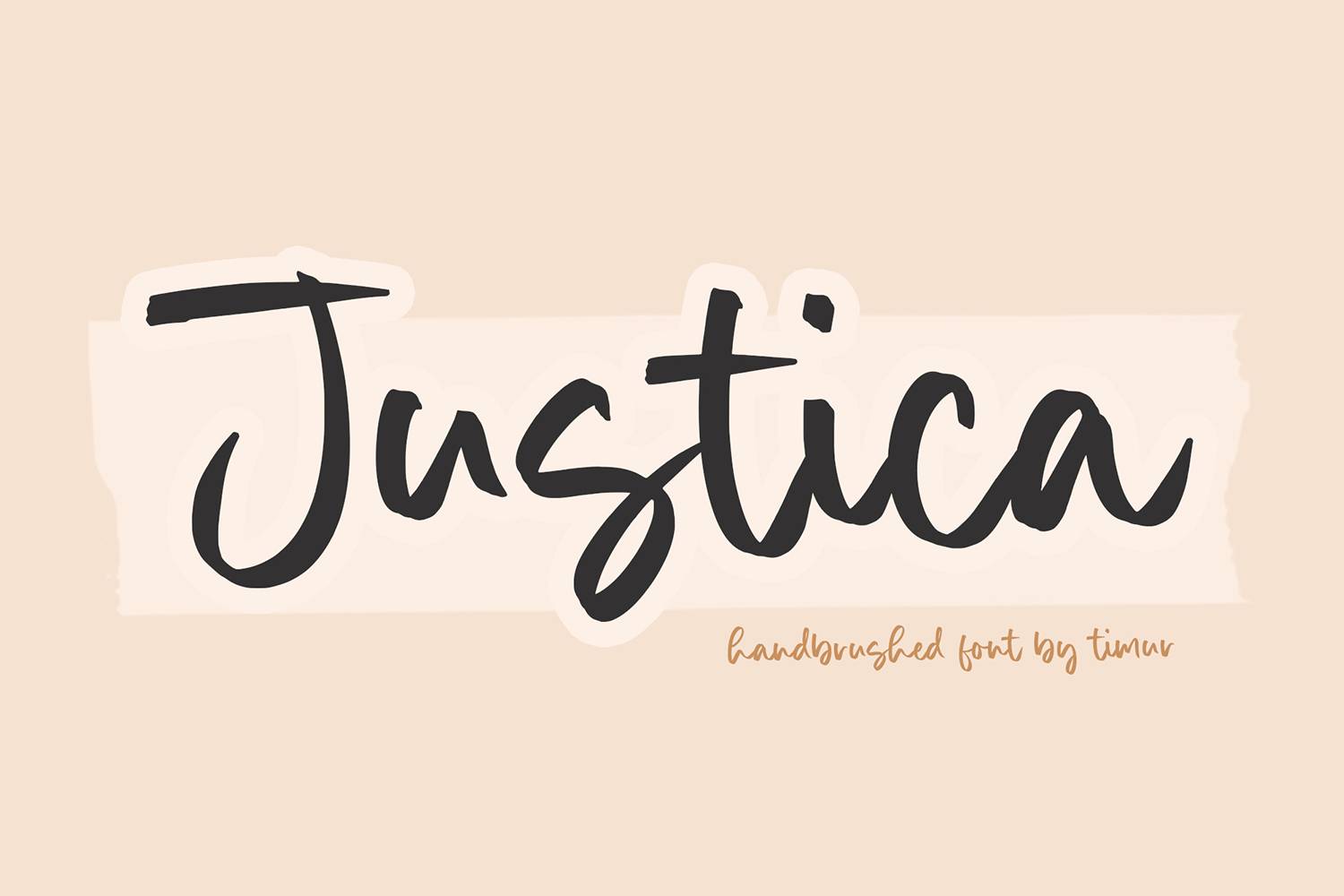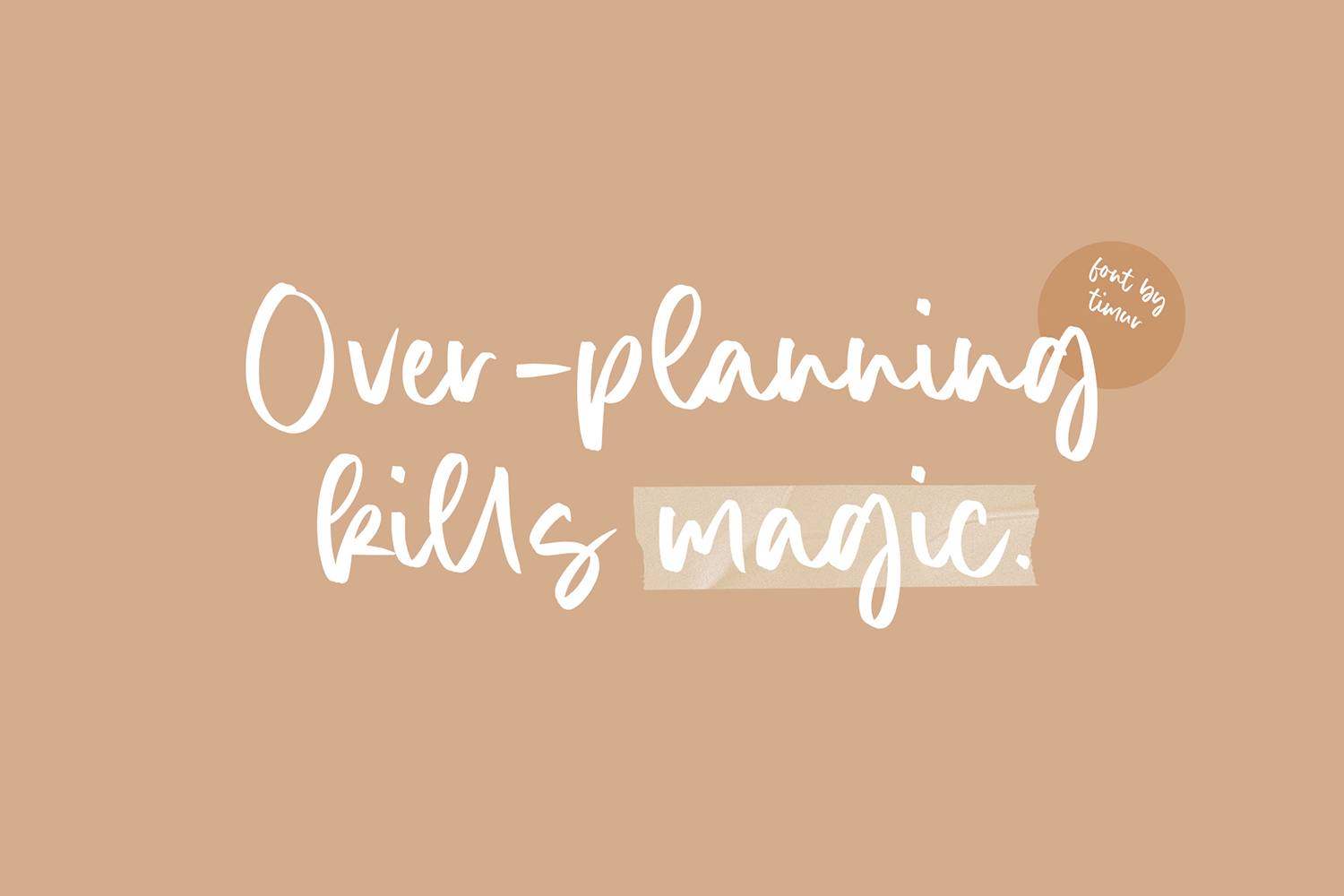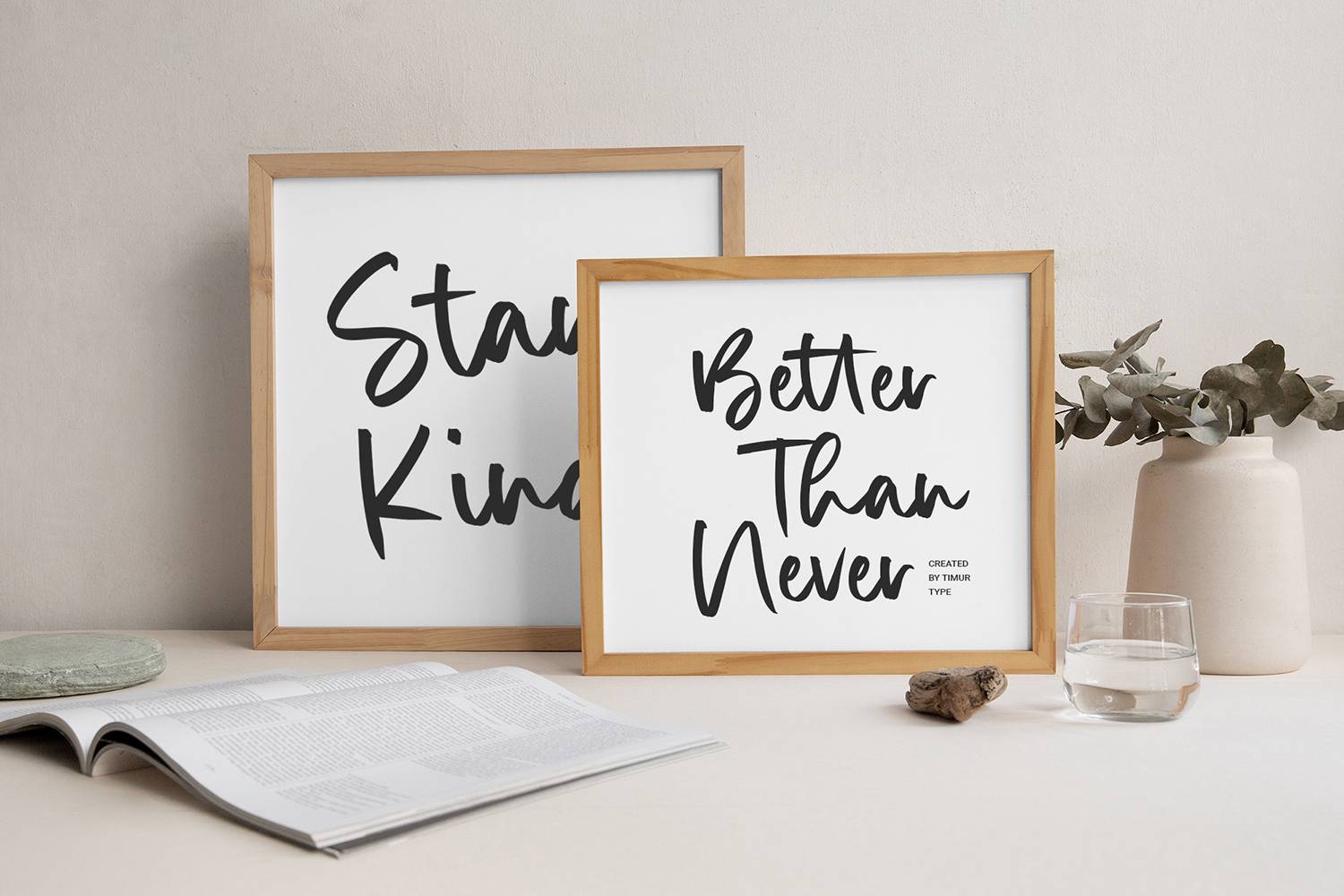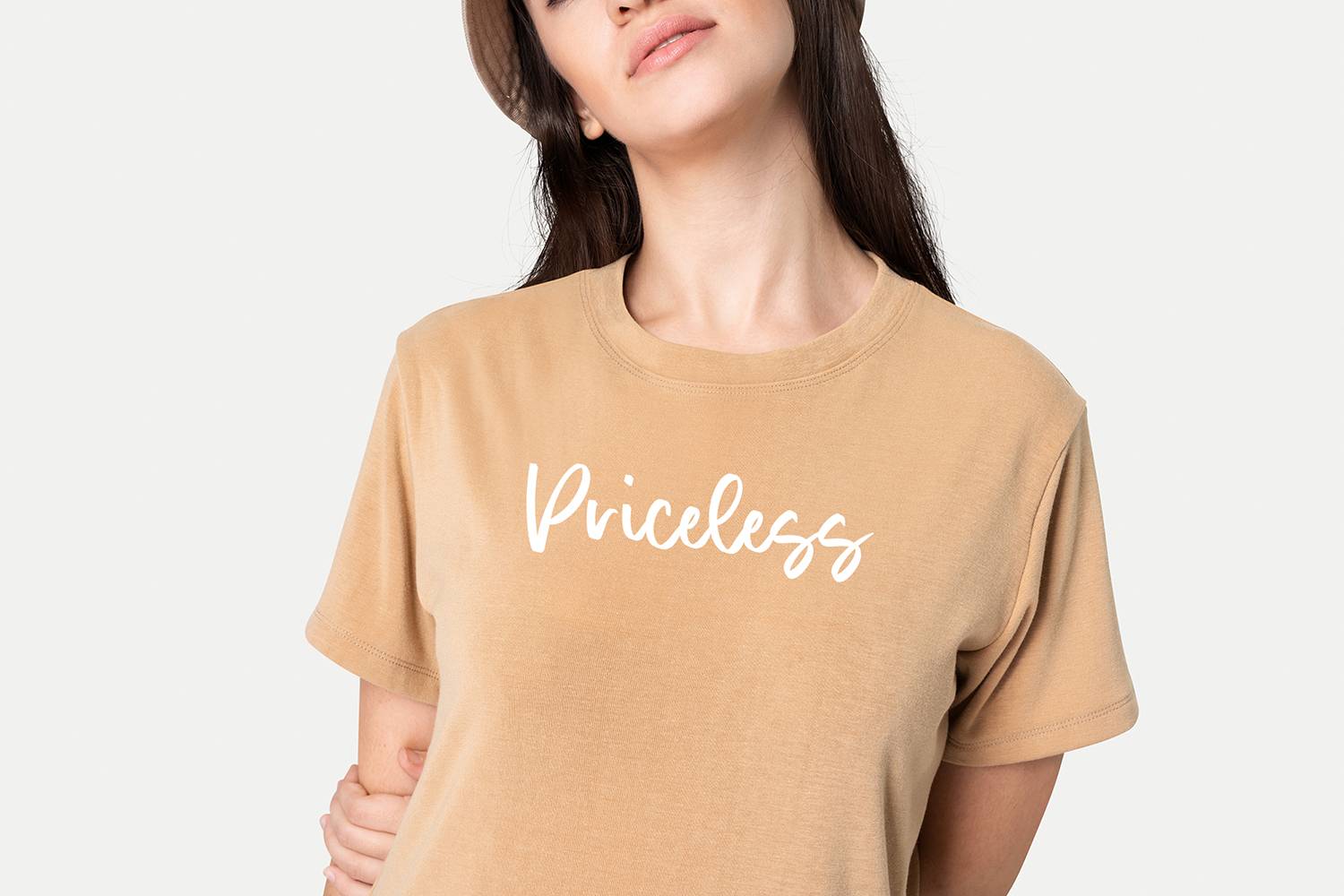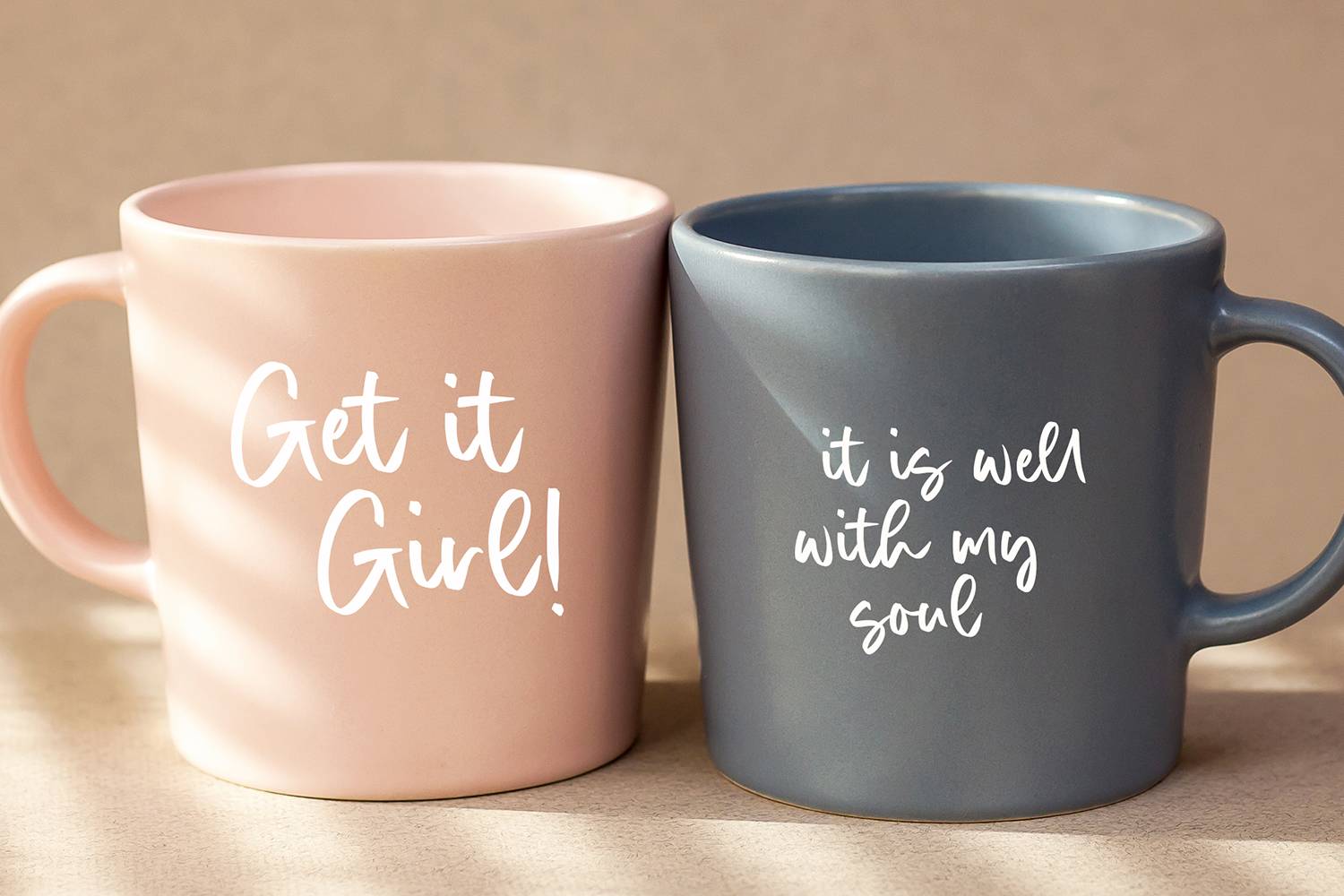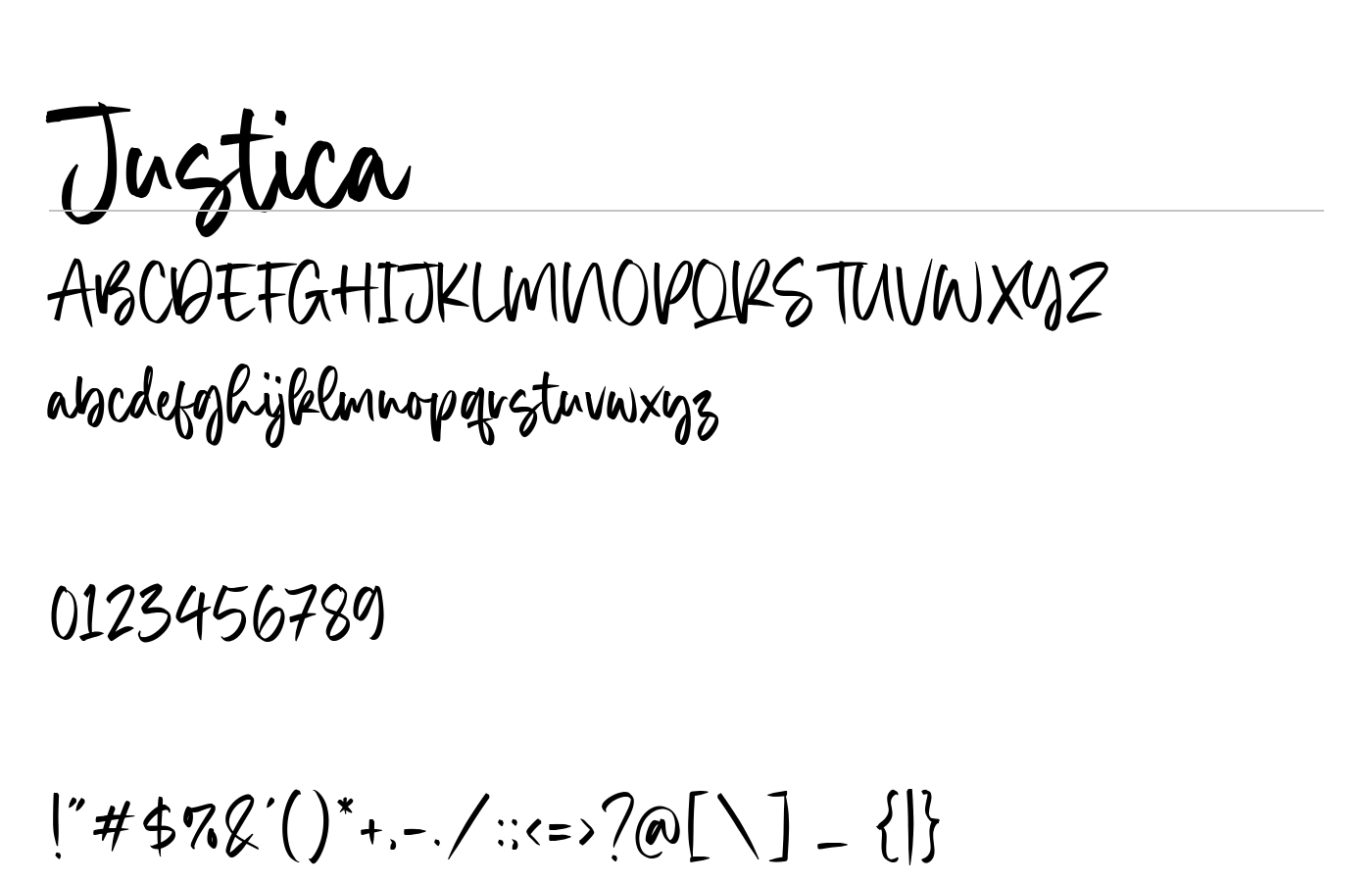
Justica is a lively handwritten font with a casual, brush-script feel characterized by its uneven strokes and playful letterforms. It offers a friendly and approachable style, making it ideal for creative projects, personal branding, and informal communication where a warm, human touch is desired. Its energetic vibe works well in logos, social media graphics, and packaging that seek to connect authentically with the audience.
Justica Font
About Justica Font